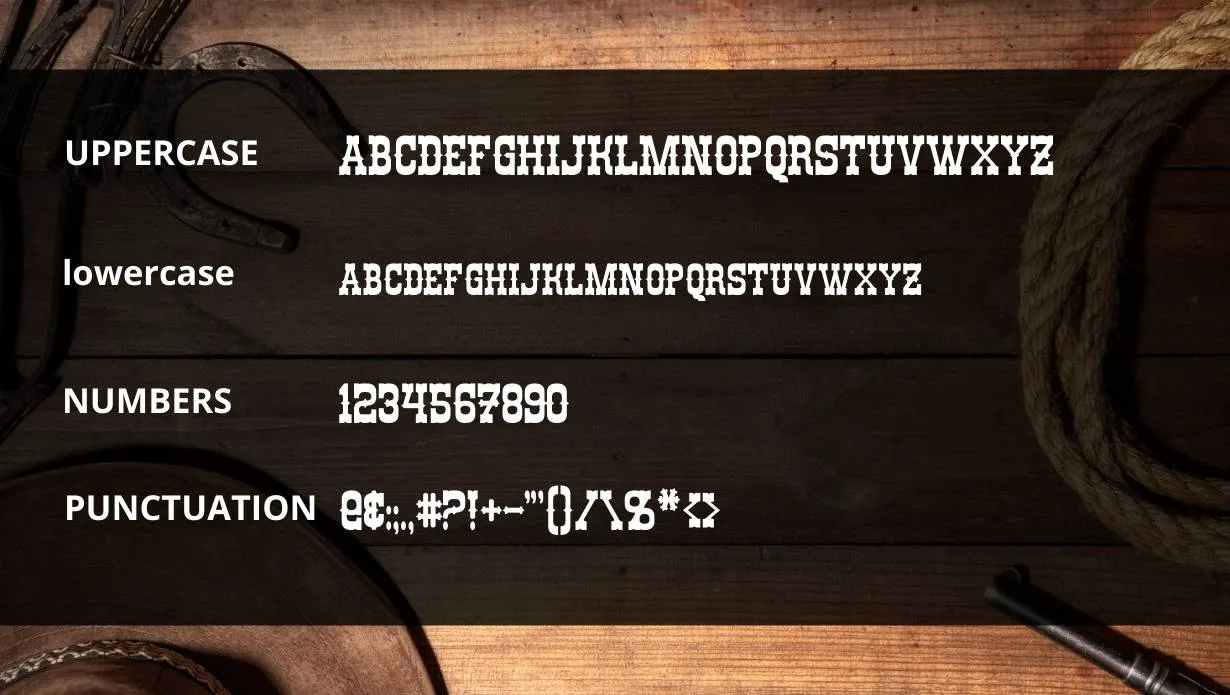
Urban Cowboy Font is a typeface that was created in the early 1980s. The font was designed to be used on signs and posters for the film “Urban Cowboy”.
The letters in this Font are all capitalized. There is a very limited amount of punctuation marks included in the font. If you are looking for a font that has a strong Western influence, then the Urban Cowboy Font is a great choice.
It is also known for its immense language support same as the friz quadrata font and it can support many different international alphabets.
Designer | Miguel Ibarra |
Style | Display |